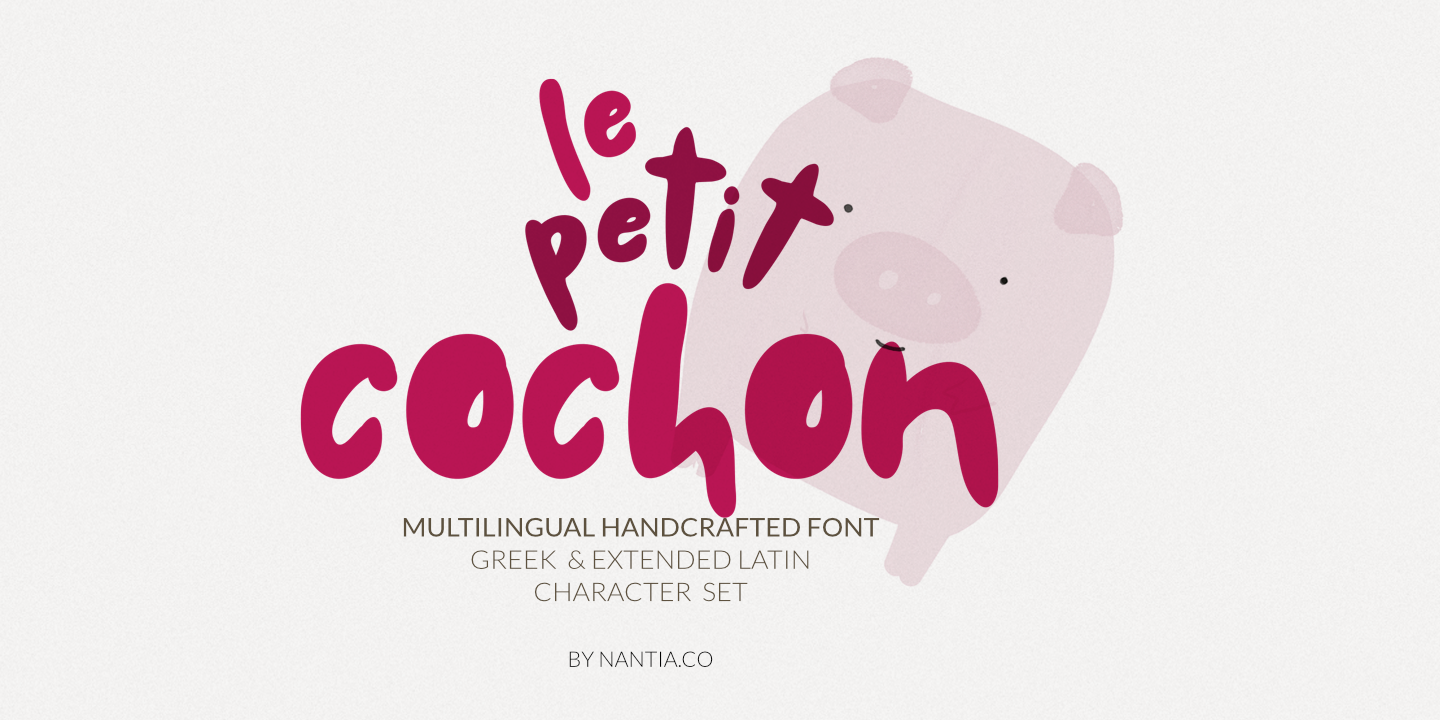
Le petit cochon Font is an utterly charming and whimsical typeface, perfect for designs that aim to convey a sense of childlike innocence, playful mischief, or a delightful storybook aesthetic. Its unique, often hand-drawn style and endearing irregularities, reminiscent of a beloved children's illustration, make it an excellent choice for kid-focused branding, picture book titles, nursery decor designs, and party invitations. Imagine it bringing a warm and friendly feel to a preschool website, adding whimsical character to toy packaging, or providing a sweet touch to baby clothing designs. This font is also superb for animated shorts titles, educational materials for young learners, and any project where an innocent, joyful, and utterly charming visual identity is key. It doesn't just display text; it tells a tale, inviting smiles and sparking imagination.
What makes Le petit cochon Font so exciting is its immediate ability to evoke a sense of pure delight and unbridled imagination. It perfectly captures the endearing imperfections and unique charm of handcrafted artwork, making any message feel more personal, heartwarming, and truly special. This distinctive personality makes it a fantastic choice for designers looking to infuse their projects with a lighthearted and wonderfully imaginative atmosphere. It’s a font that speaks with a cheerful, innocent voice, making it ideal for brands and content creators who want to appeal to children and families, fostering a sense of fun, comfort, and storytelling. Its irresistibly cute appeal can make any design feel more engaging and memorably joyful.
The Le petit cochon Font family, given its often artistic and bespoke nature, might not always feature the extensive weight variations seen in more traditional typefaces. However, it typically offers different styles or complementary elements that enhance its unique aesthetic and provide creative flexibility. You might find variations such as:
• Le petit cochon Regular
• Le petit cochon Bold (for added emphasis while retaining the whimsical feel)
• Le petit cochon Italic (if designed with a slight slant)
• Le petit cochon Alternates (additional character variations for more natural randomness)
• Le petit cochon Dingbats/Illustrations (often included as a bonus set of playful icons or characters)
These variations empower designers to maintain a consistent thematic aesthetic while adding depth and personalized flair to their compositions. The availability of Le petit cochon Font Free Download offers an excellent opportunity to explore its unique charm and expressive potential for your personal design ventures.